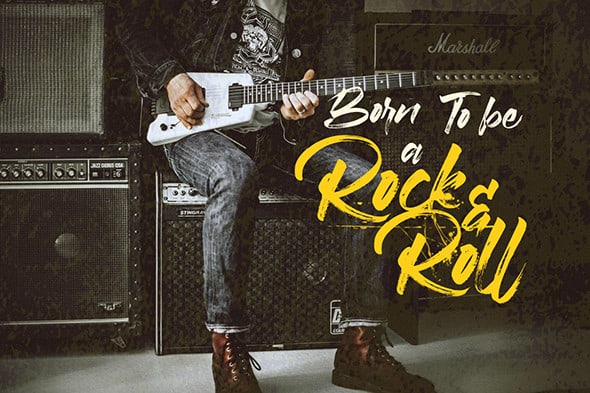
Braga Brush Font
Braga Brush Font is a rough brush script typeface with a clear style and dramatic movement this font is great for your next creative project such as logos, printed quotes, invitations, cards, product packaging, headers, Logotype, Letterhead, Poster, Apparel Design, Label, and etc.
Braga Brush Font comes with uppercase, lowercase, numerals, punctuations, and common ligatures to let you customize your designs.